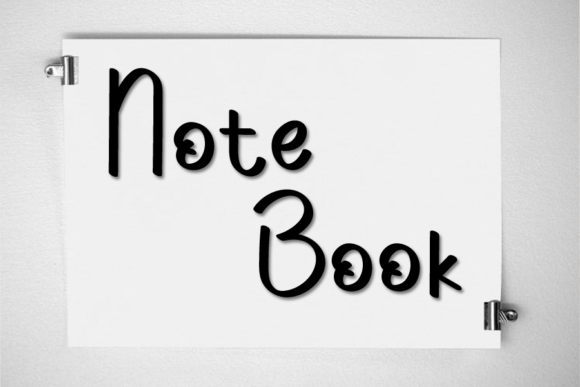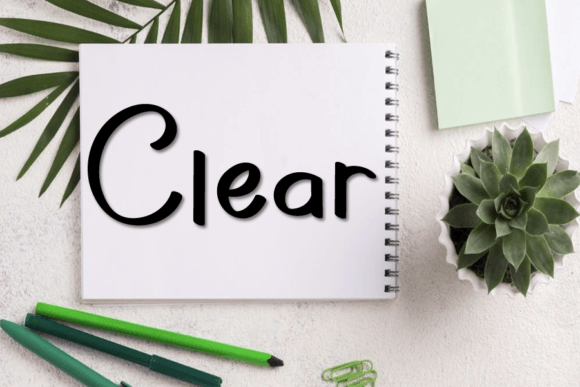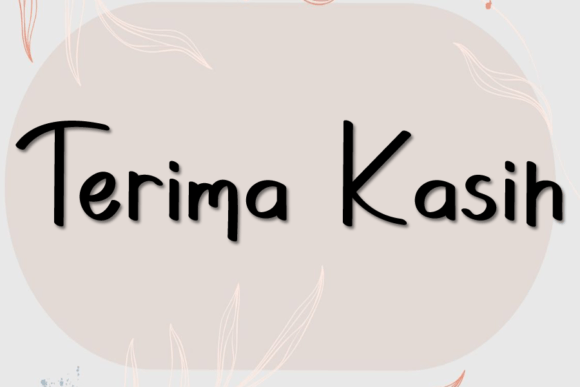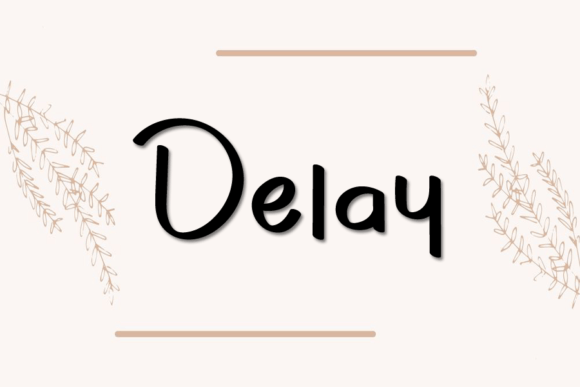
Quick Bisa Font
About Quick Bisa Font
Quick Bisa is a fun and quirky handwritten font, masterfully designed to become a true favorite. Fall in love with it and bring your projects to the highest levels!